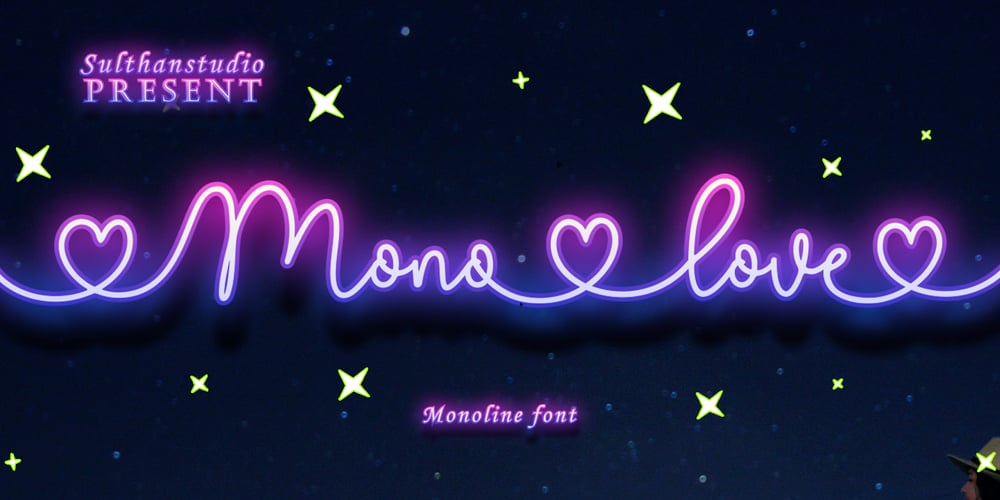
Mono Love Font Family was designed by Nasrullah and published by Sulthan Studio. Mono Love contains 1 styles and family package options. Mono love is a monoline font made by my own hand with lots of characters up to 481 glyph. And there is also a heart that can be connected, for uppercase letters have a heart connection in front. While lowercase letters have heart connections in front and back.Mono love – includes many alternative characters. Coded with Unicode PUA, which allows full access to all additional characters without having special design software. Mac users can use Font Book. Windows users can use the Character Map to view and copy one of the additional characters to paste into your favorite text editor. For people who have opentype-capable software: Alternatives can be accessed by turning on the “Alternative Style” and “Ligature” buttons on the Photoshop Character panel, or through any software with the glyph panel, e.g. Adobe Illustrator, Photoshop CC, Inkscape.